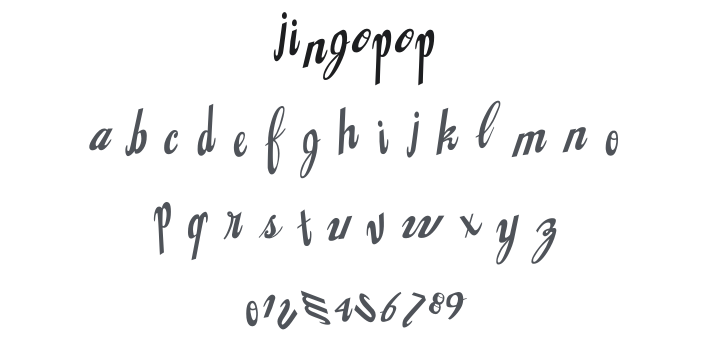
Jingopop Font
About Jingopop
Jingopop is a bouncy, expressive hand-lettering script with thick brush strokes and a lively, irregular rhythm — letters rise and dip with genuine handmade energy, as if quickly lettered by a confident sign painter. Its bold, inky strokes carry a warm, vintage charm. Perfect for café branding, artisan product labels, music posters, greeting cards, and any design needing spontaneous, hand-crafted personality.